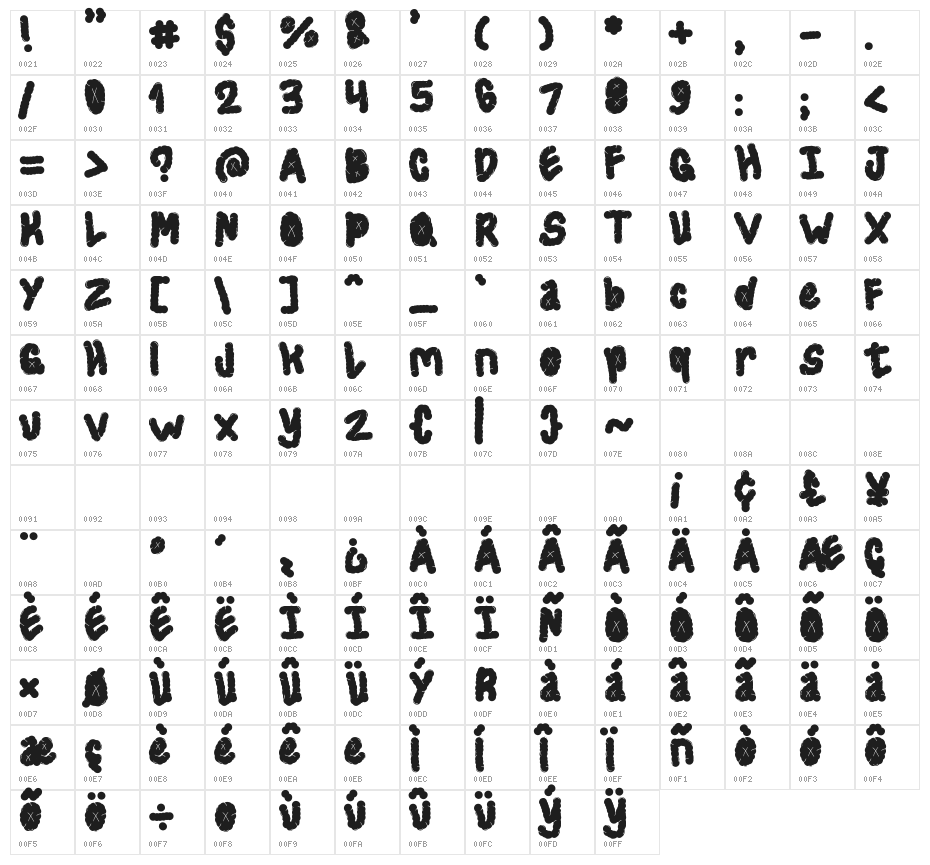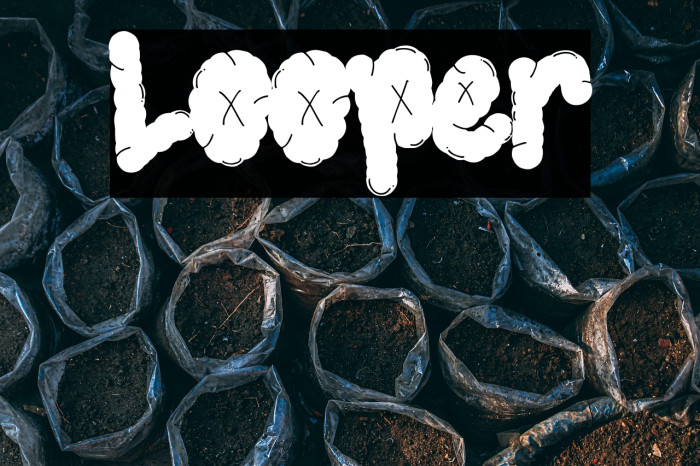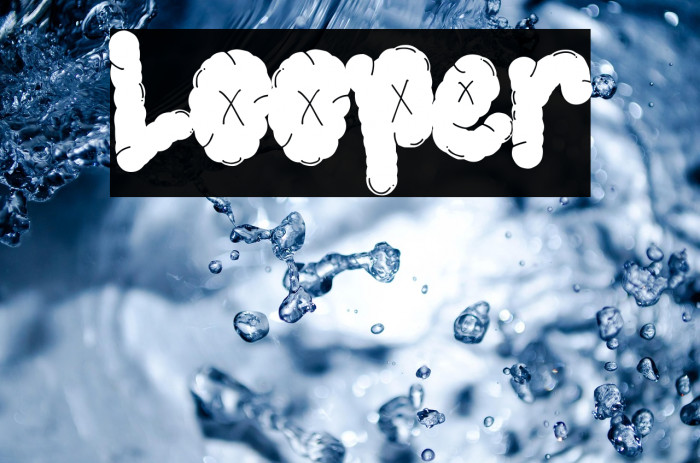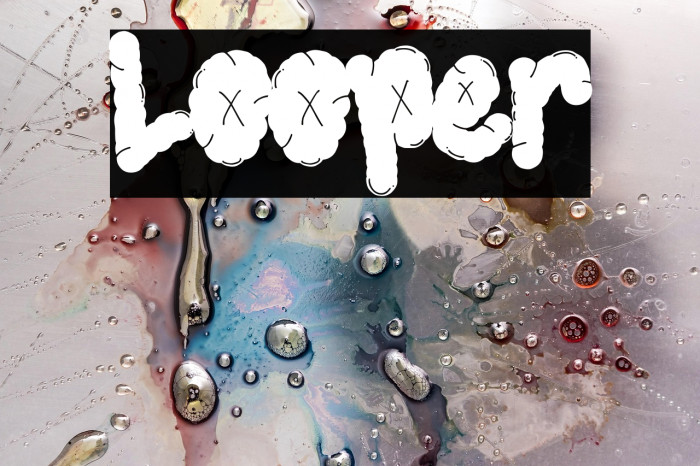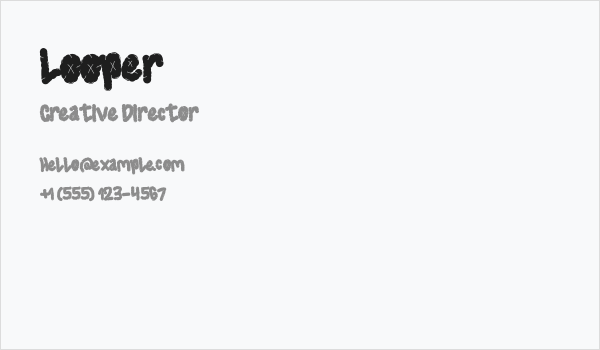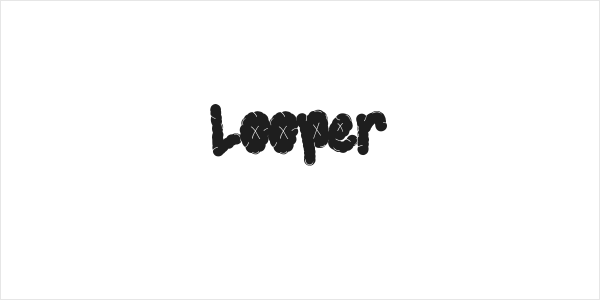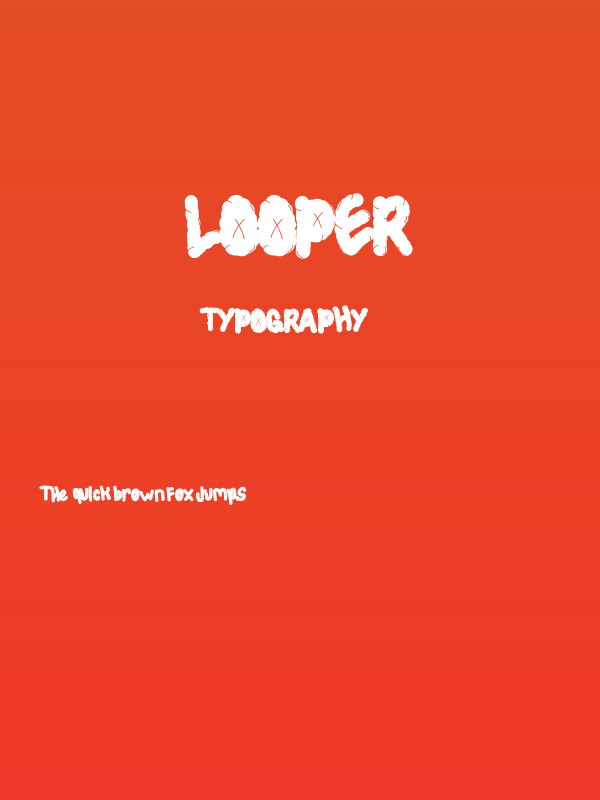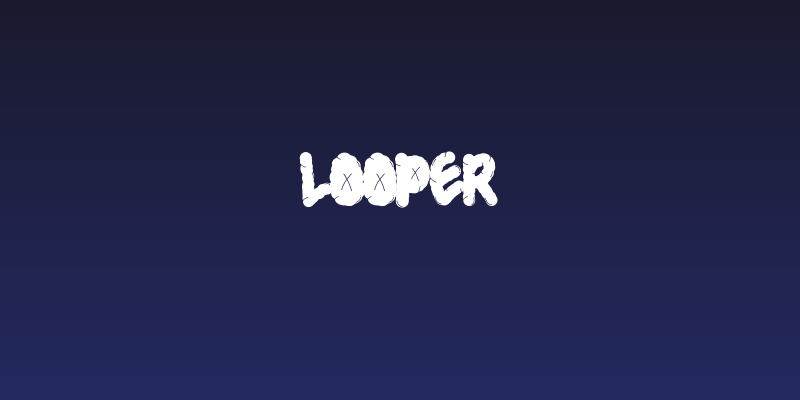
Looper Font
Looper Description
This font features a bold, playful design with a hand-drawn aesthetic. Each character is filled with a solid black color and outlined with a white border, creating a striking contrast. The letters are rounded and slightly irregular, giving them a whimsical and informal appearance. The font includes both uppercase and lowercase letters, numbers, and a variety of special characters. Its unique style is reminiscent of doodles or graffiti, making it ideal for creative and casual projects.
| Proposed Projects | Perfect for children's books, playful branding, posters, and creative social media graphics. |